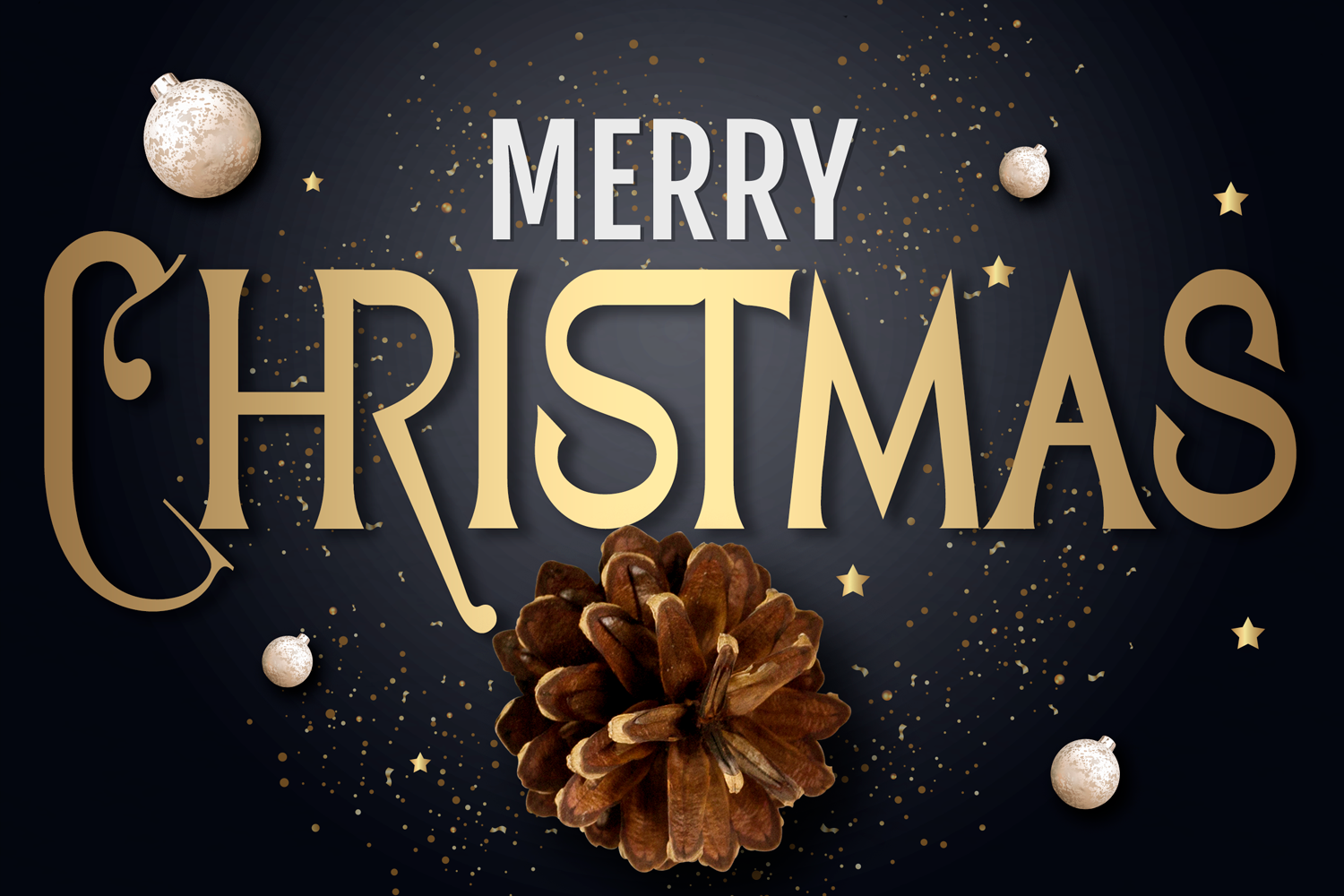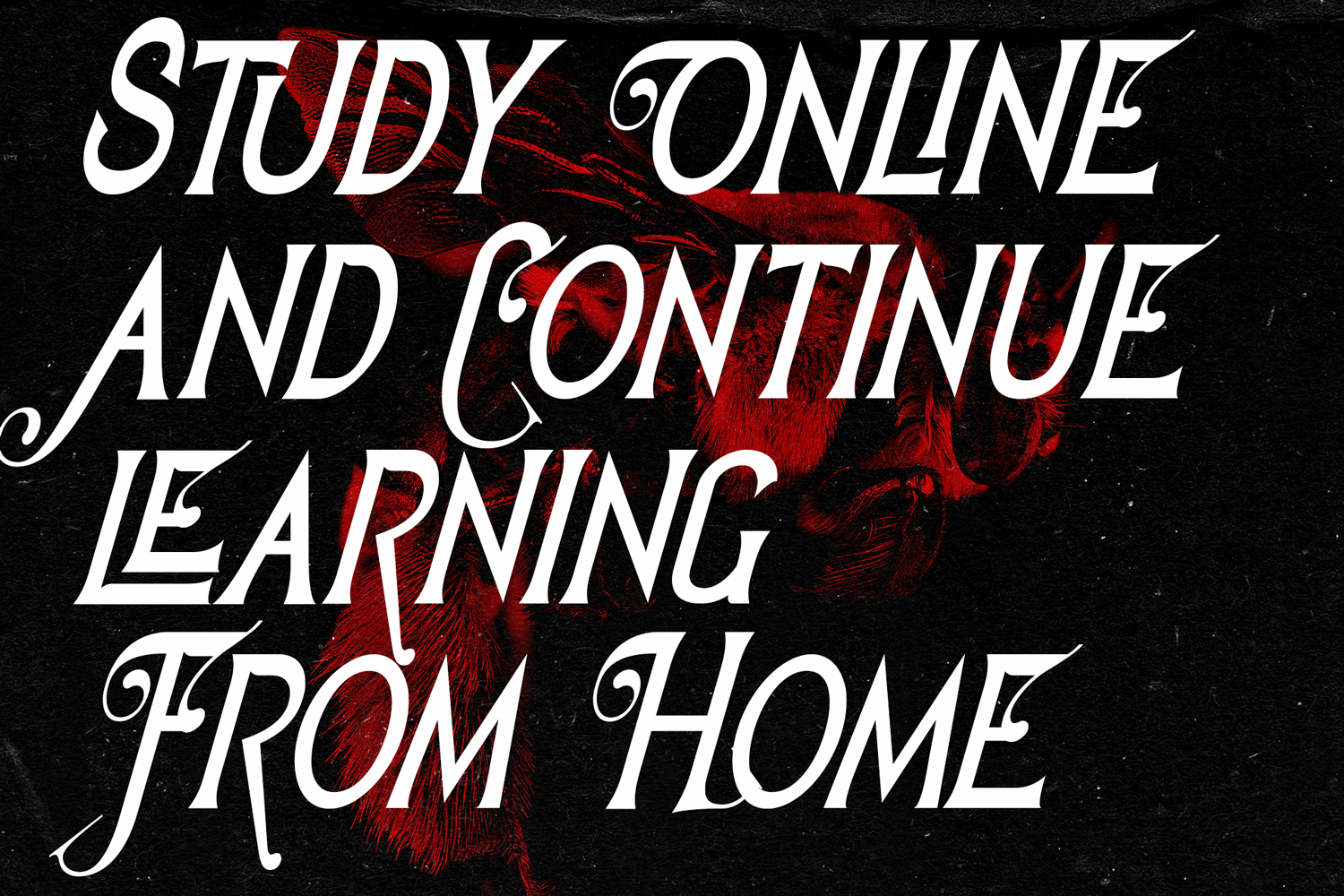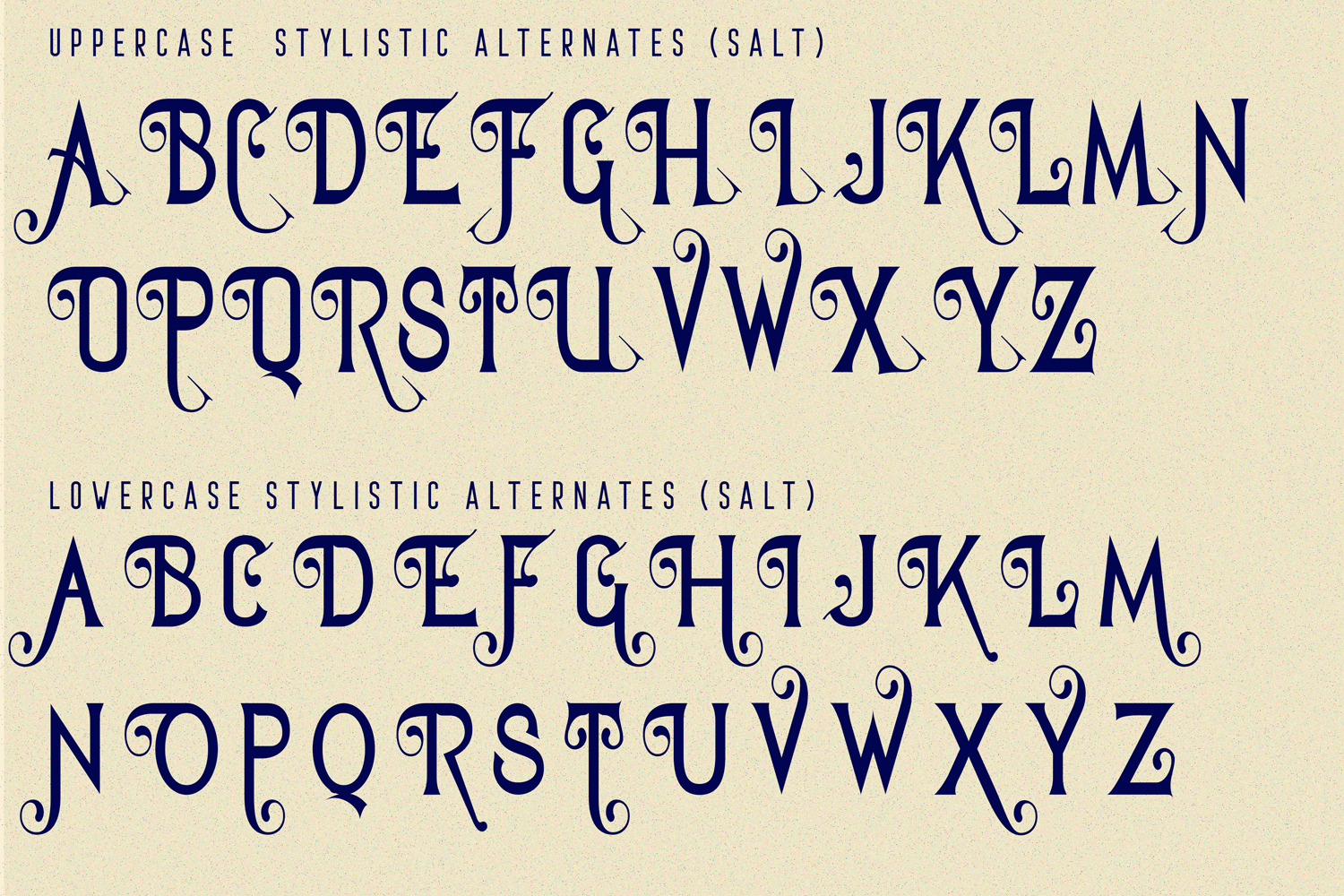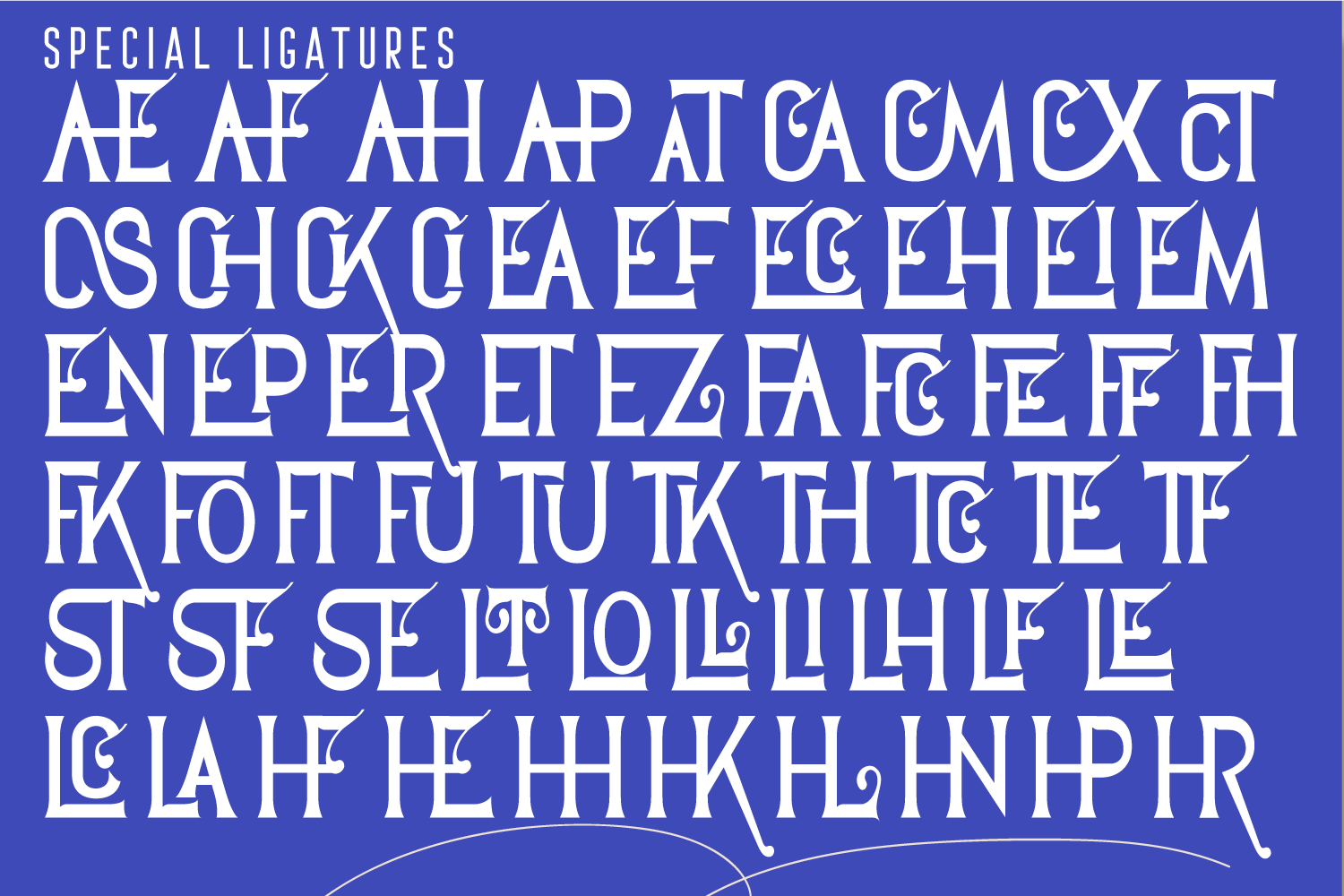
Geajer Font
Proudly present Geajer Typeface, A serif modern and classic typeface that his own unique style & modern look. It’s comes with an aesthetic style, and the serif-type tagline is modern and elegant. It’s also equipped with current professional characteristics that can present an elegant and attractive identity for your company or project for business purposes. This typeface is perfect for an elegant & luxury logo, book or movie title design, fashion brand, magazine, clothes, lettering, quotes, and so much more.
To make it look more unique, here we prepared some ligatures:
ae af ah ap at ca cm cx ct cs ch ck ci ea ef ec eh ei em en ep er et ez fa fc fe ff fh fk fo ft fu tu tk th tc te tf st sf se lt lo ll li lh lf le lc la hf he hh hk hl hn hp hr